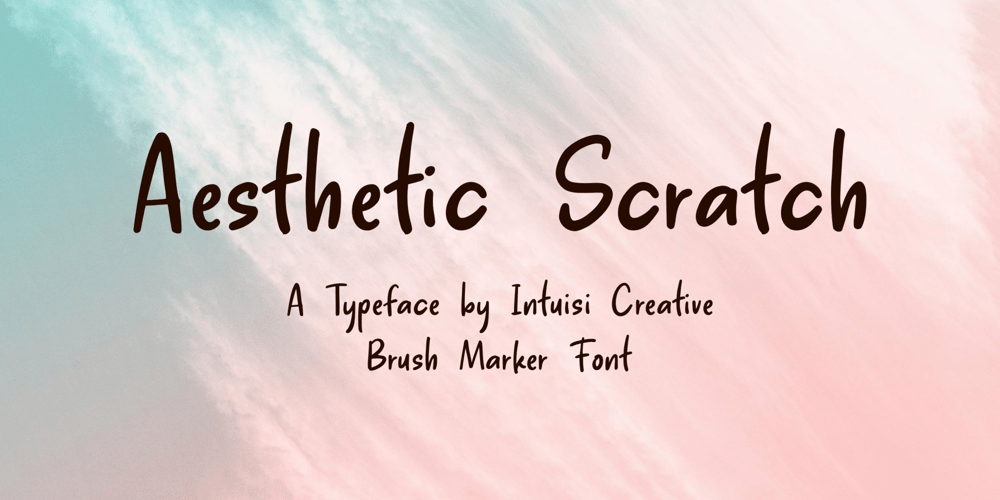
Aesthetic Scratch Font Family was designed by Intuisi Creative and published by Fauzistudio. Aesthetic Scratch contains 1 styles and family package options. Aesthetic Scratch is a casual handwritten font. Perfect for greeting cards, wedding stationery, photographer watermark logos, modern websites, clothing designs and more.Aesthetic Scratch displays a natural but still aesthetic handwriting style.Thank you very much for visiting my store, and please contact us if you have any questions!Aesthetic Scratch Font Features:Full Set of standard alphabet and handwritten punctuation PUA Encoded – no special software required to access additional characters